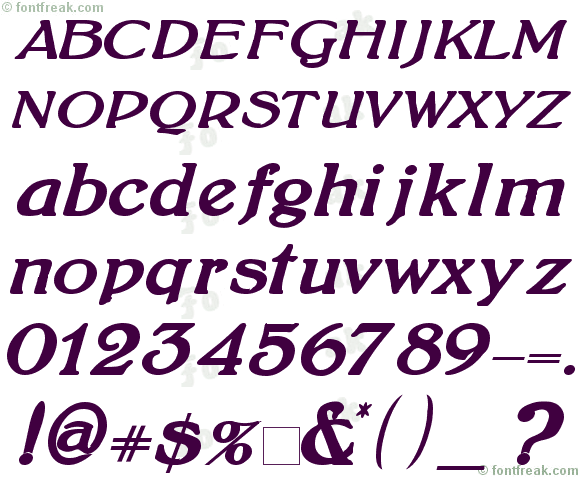
The Bolton font, designed by Paul Lloyd, is a striking display typeface that beautifully balances elegance and boldness. As a member of the decorative font category, Bolton features a unique blend of contemporary aesthetics with classic influences. Its stroke weight varies, providing a dynamic visual appeal, while the carefully crafted letterforms exhibit a moderate contrast that enhances readability. The font's spacing is designed to ensure clarity, making it suitable for various applications.
Bolton offers an array of styles, including Bolton Italic, Bolton Shadowed, and Bolton Bold, among others. This versatility makes it an excellent choice for a wide range of projects. Whether you are designing eye-catching wedding invitations, dynamic movie posters, or stylish restaurant menus, Bolton adds a distinctive flair that captures attention. Additionally, its unique drop caps and titling options make it perfect for book covers and branding materials, ensuring your designs stand out in any context.
The target audience for the Bolton font includes graphic designers, small business owners, and content creators seeking to elevate their work with a unique typeface. Its versatility allows for creative freedom, enabling users to adapt the font to suit their specific needs while maintaining a professional look.
What truly sets Bolton apart is its ability to merge form and function effortlessly. The font's design elements are not just visually appealing; they are also practical, ensuring that any text remains legible and engaging. For those looking to enhance their projects with a unique touch, Bolton font free download offers an opportunity to incorporate this exceptional typeface into your creative arsenal. Its distinctive character makes it a standout choice for anyone seeking to make a lasting impression.